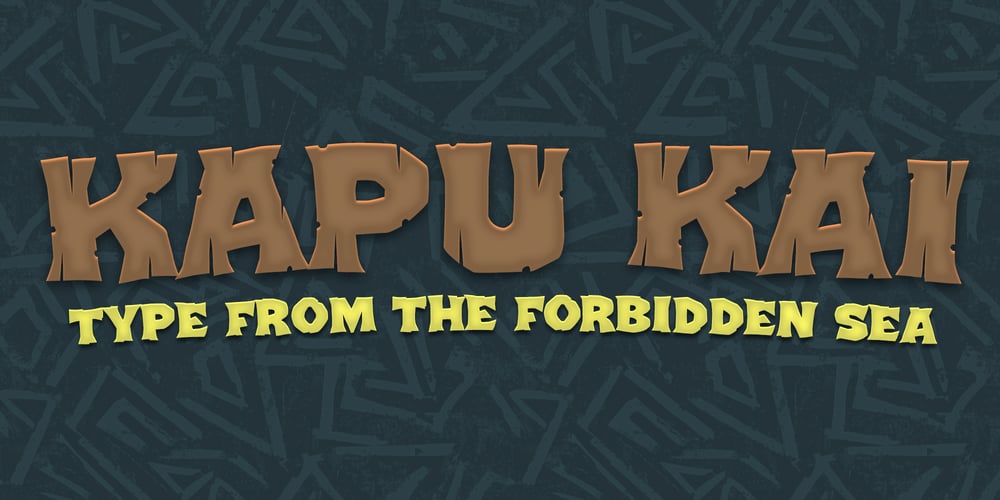
Kapu Kai Font Family was designed by Brian J. Bonislawsky, Dave Cohen and published by One Eyed Squid. Kapu Kai contains 2 styles and family package options. Steeped with adventure and intrigue, pirates and polynesian influence embody Kapu Kai, the type of the forbidden seas. Whether using the Aged (Regular) style or the Solid style, you’ll find that Kapu Kai lends a lot of tiki inspired flavor to your designs.(Kapu Kai contains an extended Latin character set with added Vietnamese support.)